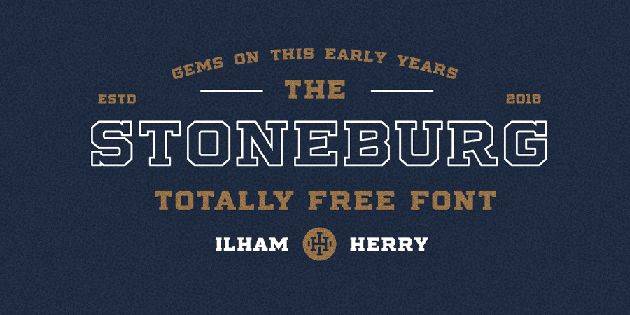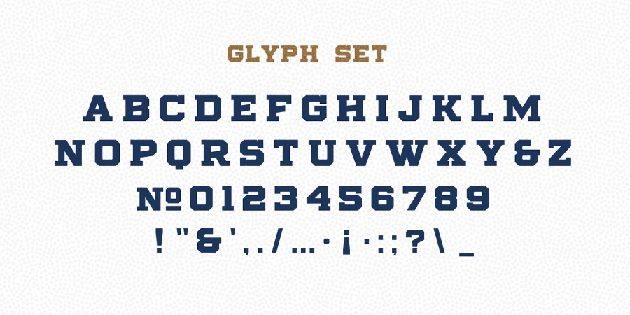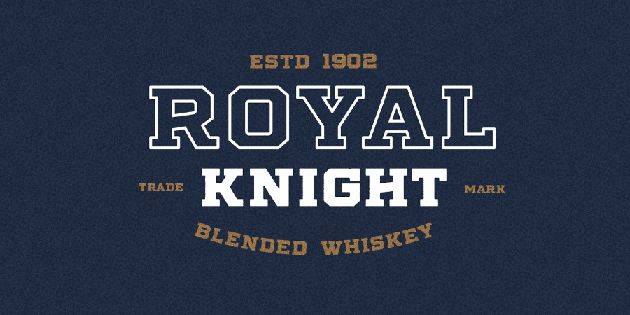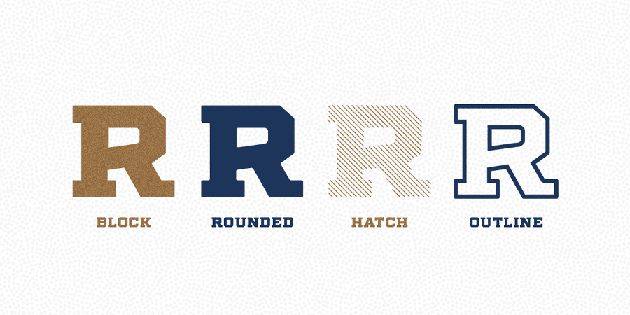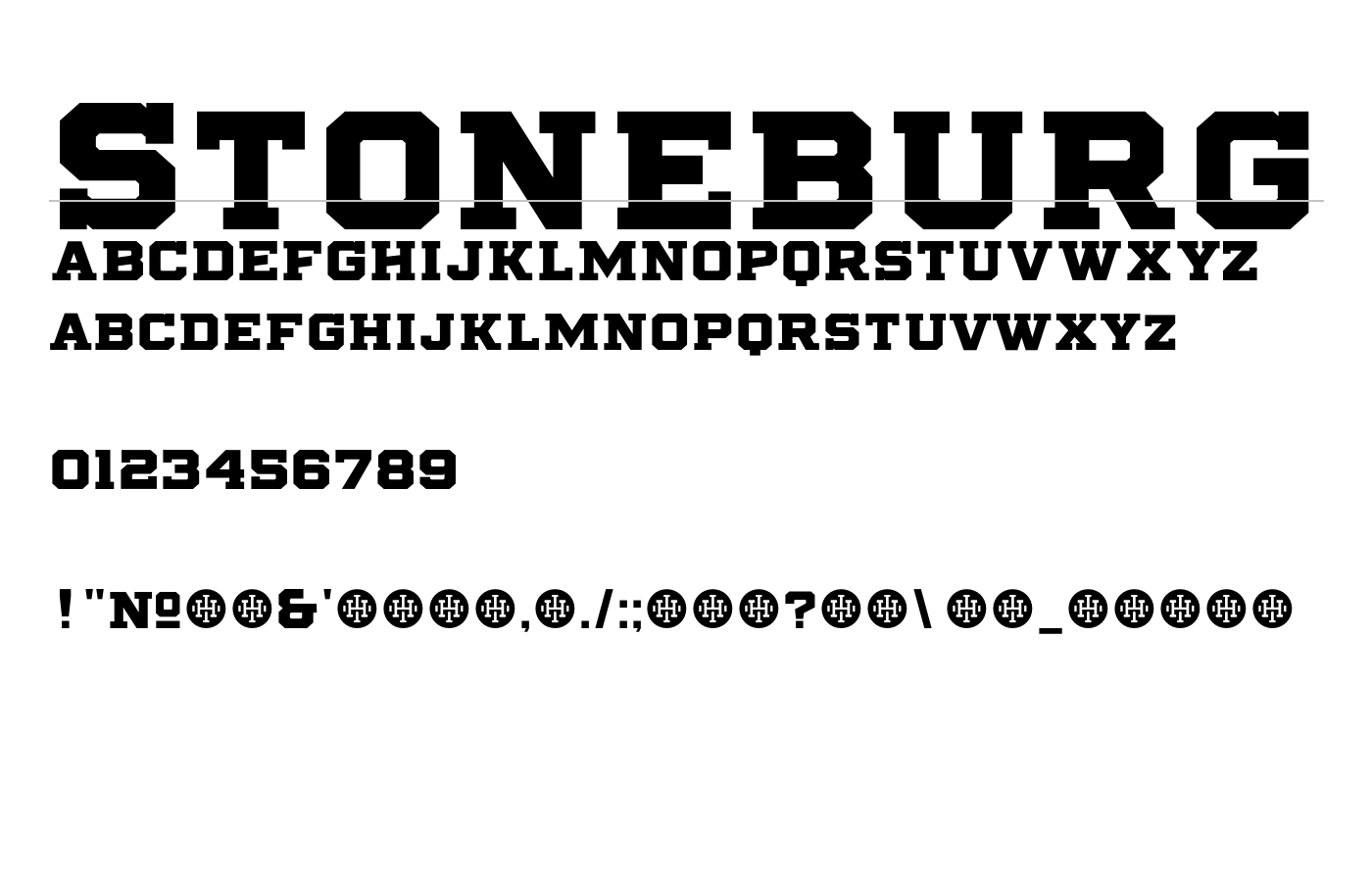
Stoneburg Block is a bold, condensed slab serif font featuring strong, geometric shapes with thick, unbracketed serifs that give it a sturdy and impactful presence. Its uniform stroke weight and solid letterforms convey a vintage, industrial vibe, making it perfect for logos, headlines, posters, and branding that requires a tough, confident look. This font works especially well in designs that need to stand out with a commanding, rugged style.
Stoneburg Block Font
About Stoneburg Block Font
| Font family | Stoneburg Block Font |
| Designer | Ilhamherry |